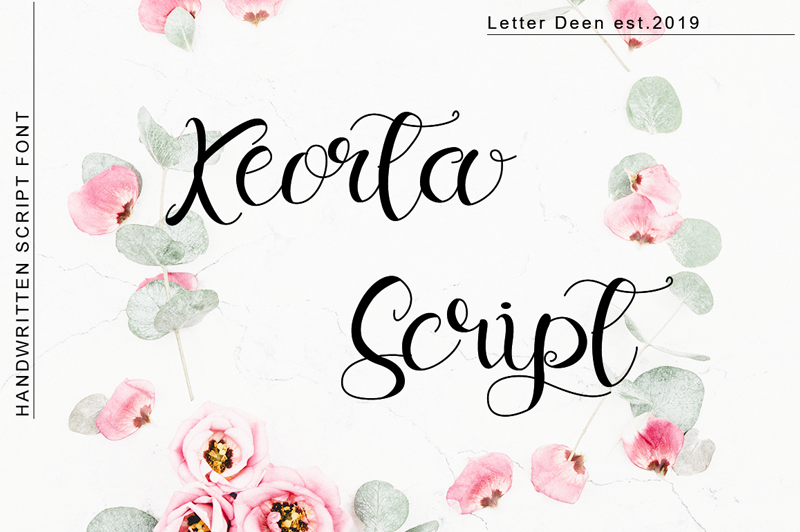
Font name: | Keorta Script |
Author: | Muhammad Wahyudin |
Note by Muhammad Wahyudin | |
Keorta Script is a handwritten font, made with ordinary pens and markers, with a sweet touch and beautiful curves on each letter. This font is great for your next creative project. NOTE: This demo font is for PERSONAL USE ONLY! But any donation are very appreciated. Paypal account for donation : https://www.paypal.me/wahyudin1886 Link to purchase commercial license : https://thehungryjpeg.com/product/3619437-keorta-script Please visit our store for more great fonts : https://graphicriver.net/user/letter_deen Thank you. |